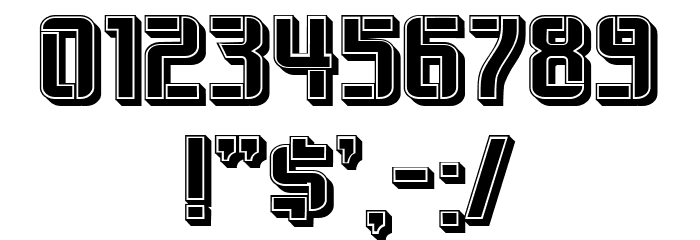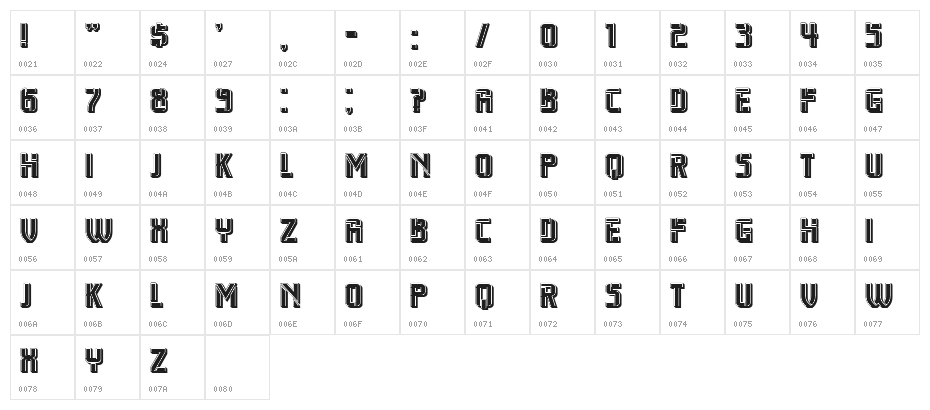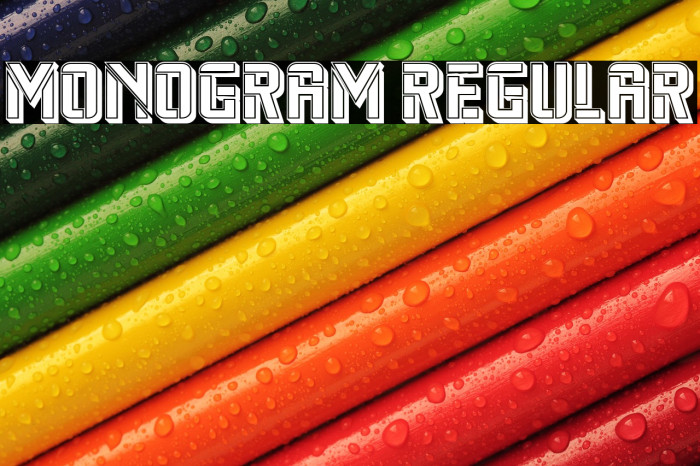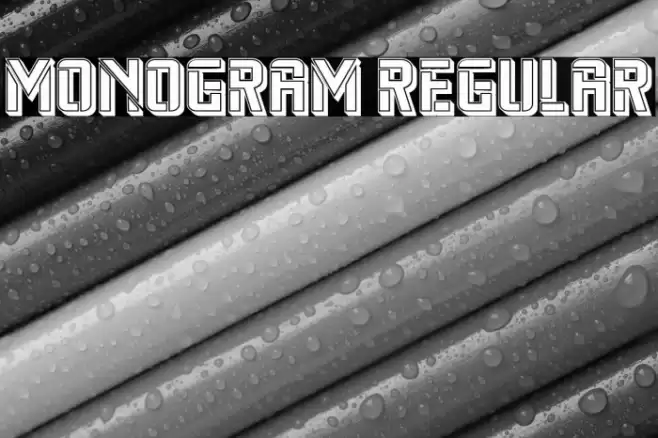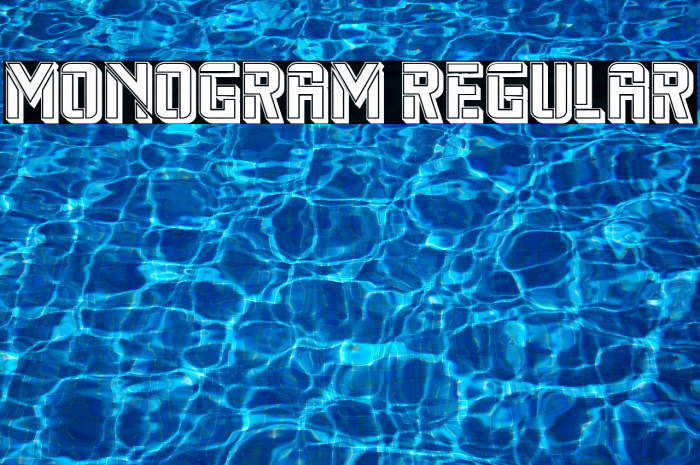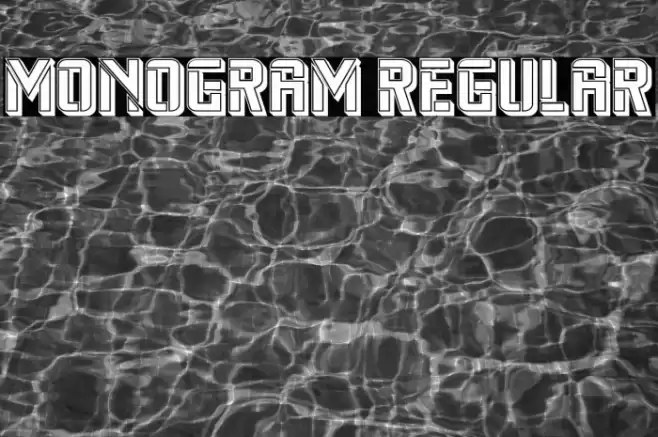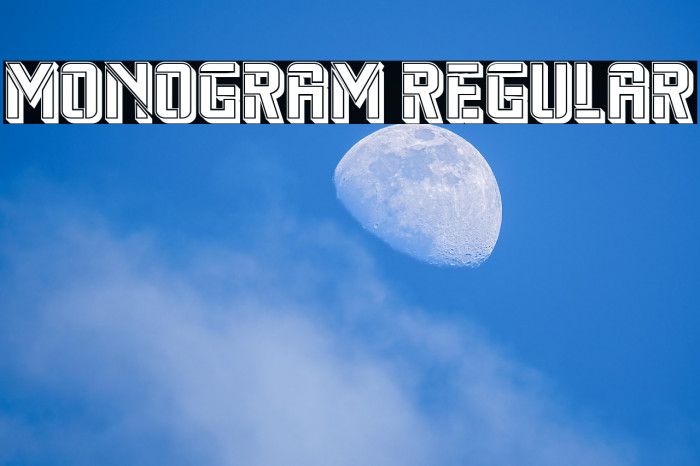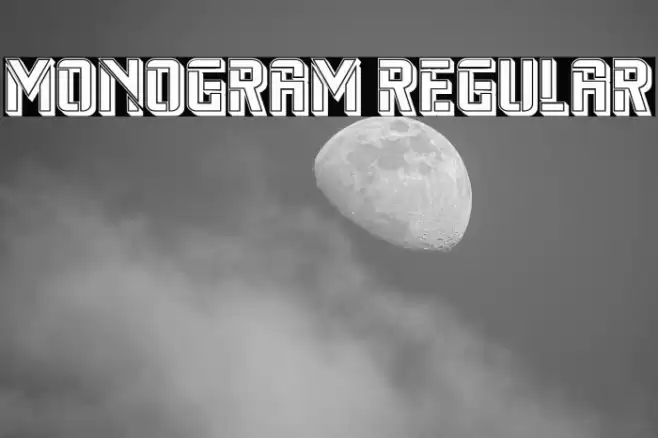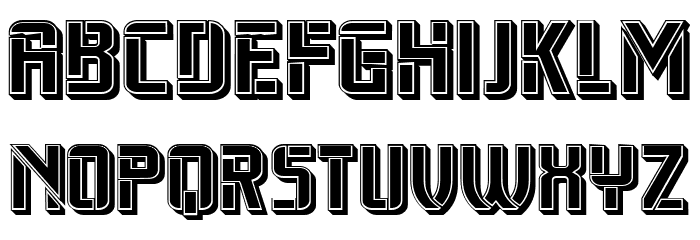
Monogram Regular Font
Monogram Regular Description
This font features a bold, geometric design with a three-dimensional effect that gives it a striking and modern appearance. The characters are constructed with thick lines and sharp angles, creating a sense of depth and structure. The uppercase and lowercase letters maintain a consistent style, with each character displaying a unique interplay of solid and outlined segments. The numerals and special characters follow the same design principles, ensuring uniformity across the entire typeface. This font's bold and structured look makes it ideal for projects that require a strong visual impact.
Proposed ProjectsIdeal for branding, posters, headlines, and any design needing a strong visual impact.